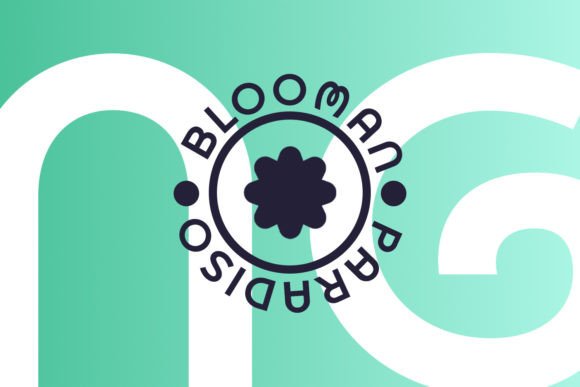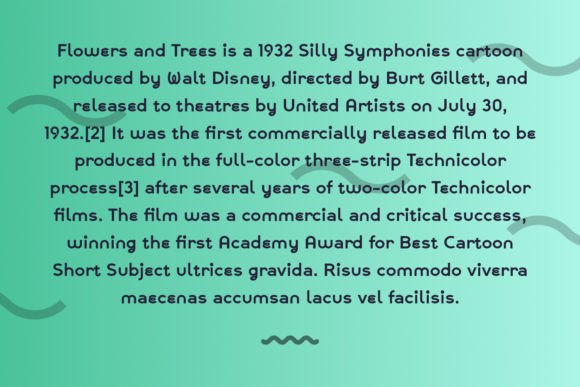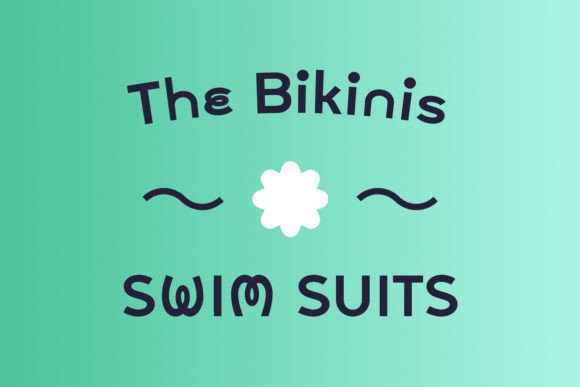
Introduction to Nobelle Font
Nobelle is a fun and casual display font.
Take your designs to the next level with this captivating font Use it to create unique t-shirt designs, decorations, digital designs, stickers, cards, and many more.
Nobelle Font offers exceptional quality and versatility, making it a valuable addition to your design toolkit. Whether you’re creating for personal projects or commercial use, Nobelle Font delivers professional results.